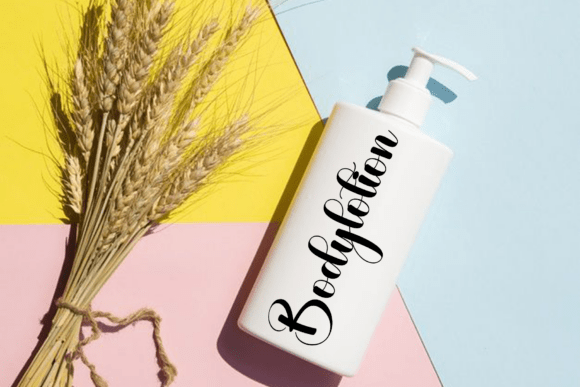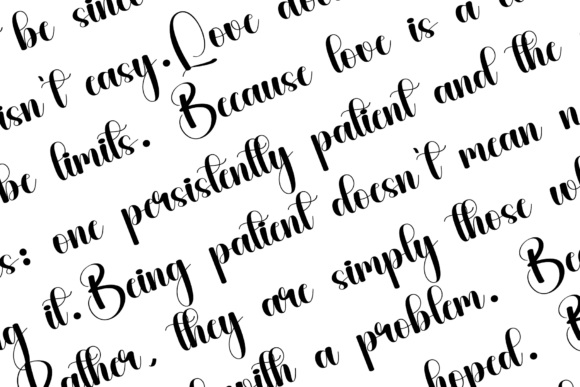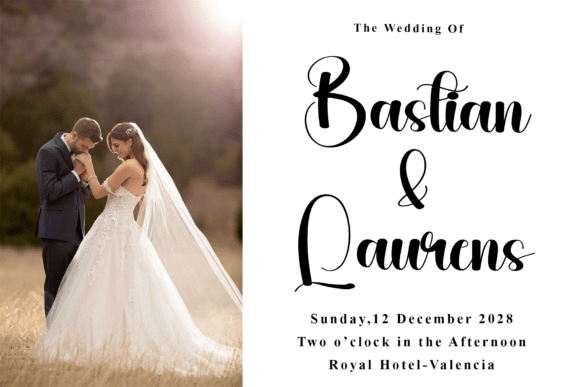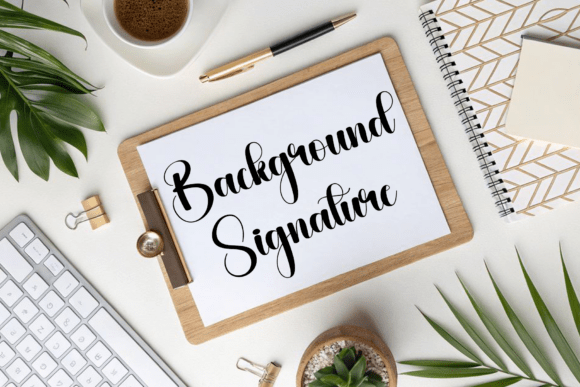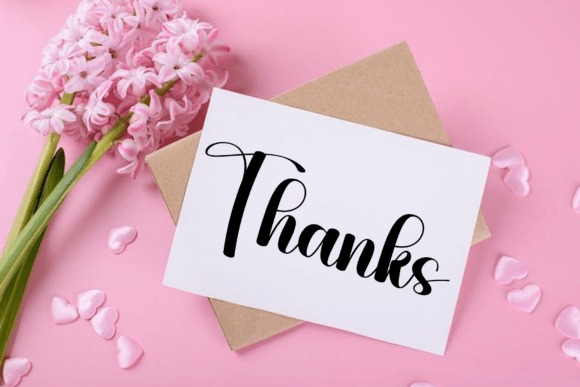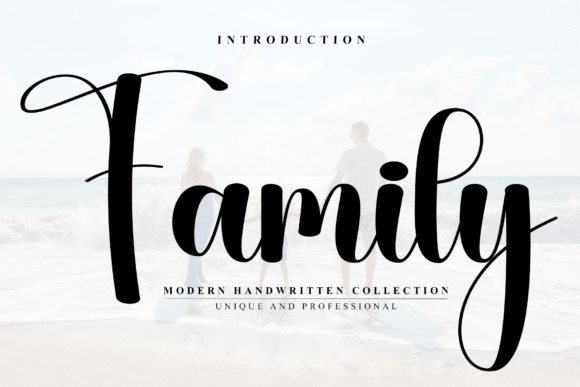
Introducing Family Font: The Perfect Blend of Elegance and Personal Touch
In the world of typography, a font can make or break the visual appeal of a design. For designers and crafters looking for a typeface that exudes warmth, intimacy, and luxury, Family Font is an excellent choice. This beautiful, modern script typeface seamlessly blends elegance with a personal, handwritten feel, making it perfect for upscale branding, personal projects, and a wide range of creative applications.
The Characteristics of Family Font
Family Font boasts stunning swashes and generous connecting strokes that create a luxurious, flowing rhythm. The unique glyphs include captivating initial and terminal swashes that extend far beyond the letters, providing exceptional visual appeal. These distinctive features make Family Font ideal for logos, wedding invitations, product packaging, and any design that requires a touch of sophistication and glamour.
What Makes Family Font Stand Out
Family Font is more than just a beautiful typeface; it’s a versatile tool that can elevate any design. Here are some key features that make it stand out:
- PUA-encoded: Family Font is PUA-encoded, ensuring effortless access to all glyphs, swashes, and alternate characters. This makes it easy to customize your creations and add a personal touch.
- Wide Range of Applications: From logos and branding to wedding invitations, product packaging, and more, Family Font is suitable for a wide range of creative projects.
- Authentic yet Polished: This handwritten typeface offers an authentic, personal feel while still maintaining a polished, refined look.
- Exceptional Visual Appeal: The captivating swashes and glyphs of Family Font add a unique touch to any design, making it perfect for designers seeking a distinctive style.
Using Family Font in Your Designs
Whether you’re a designer, crafter, or DIY enthusiast, Family Font can add a bespoke touch to any creation. Here are some ideas for using Family Font in your designs:
- Logos and Branding: Create a luxurious, high-end brand image with Family Font. Its elegant, flowing script is perfect for upscale logos and branding materials.
- Wedding Invitations: Add a touch of romance and sophistication to your wedding invitations with Family Font. Its beautiful swashes and glyphs create a stunning visual effect.
- Product Packaging: Elevate your product packaging with Family Font. Its unique, handwritten feel and luxurious look make it perfect for high-end products.
- Personal Projects: Use Family Font to add a personal touch to your personal projects, such as photo albums, scrapbooking, and more.
Tips for Getting the Most Out of Family Font
To get the most out of Family Font, here are some tips:
- Experiment with Swashes: Don’t be afraid to experiment with the swashes and glyphs of Family Font. They can add a unique touch to your designs and help you create a distinctive style.
- Mix and Match: Mix and match different glyphs and swashes to create a unique look. Family Font offers a wide range of possibilities, so don’t be afraid to try new things.
- Use it with Other Fonts: Family Font can be paired with other fonts to create a stunning visual effect. Experiment with different font combinations to find the perfect look for your design.
Family Font is a beautiful, modern script typeface that offers the perfect blend of elegance and personal touch. Its stunning swashes, generous connecting strokes, and unique glyphs make it ideal for upscale branding, personal projects, and a wide range of creative applications. With its PUA-encoded feature, versatility, and exceptional visual appeal, Family Font is a superb choice for designers seeking an authentic yet polished signature style.